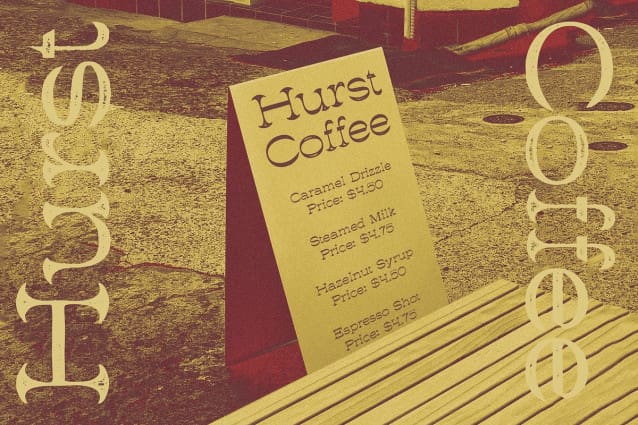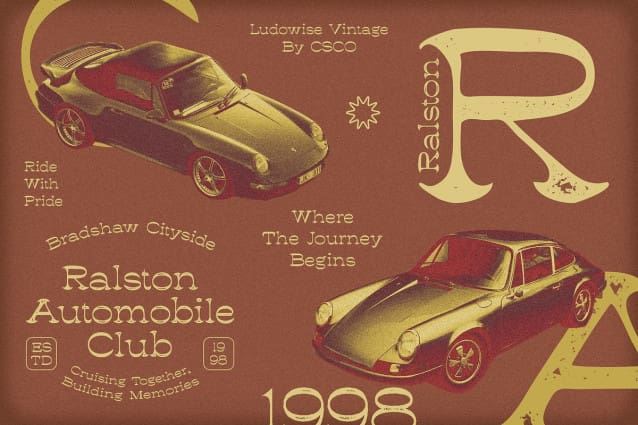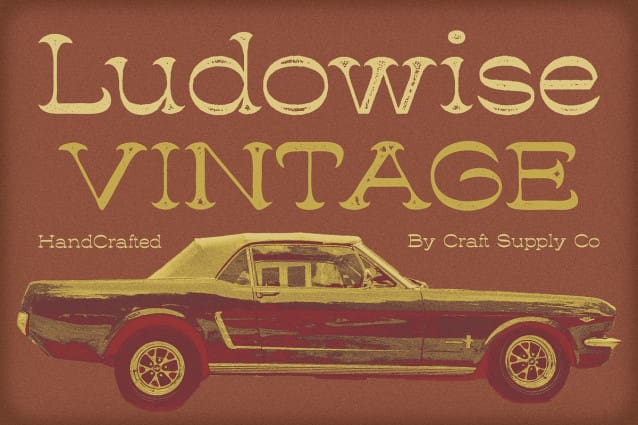
Ludowise Vintage Font
Ludowise Vintage Font: Nautical Elegance in Retro Style. Serif Anchor Reverse Contrast Design Ludowise Vintage boasts a unique serif anchor reverse contrast design, where the stems of the characters are thicker than the horizontal lines, creating a striking visual contrast.
Stamp Effect The font is enhanced with a stamp effect, giving it a weathered and distressed appearance reminiscent of vintage signage. This effect adds authenticity and character to the overall display design.
Vintage Vibes With its serif anchor reverse contrast design and stamp effect, This font exudes vintage vibes that are perfect for display purposes. It transports viewers to a bygone era, evoking nostalgia and charm.
Ideal for Display Projects This font is specifically crafted for display projects where a touch of retro elegance is desired. From posters and signage to branding and packaging, this font adds a timeless appeal to any design.
Timeless Blend of Nautical Elegance and Retro Charm This font offers a captivating blend of nautical elegance and retro charm, making it an ideal choice for designers seeking to infuse their projects with vintage vibes. With its unique design elements and stamp effect, This font stands out as a versatile and visually appealing font for a wide range of display applications.